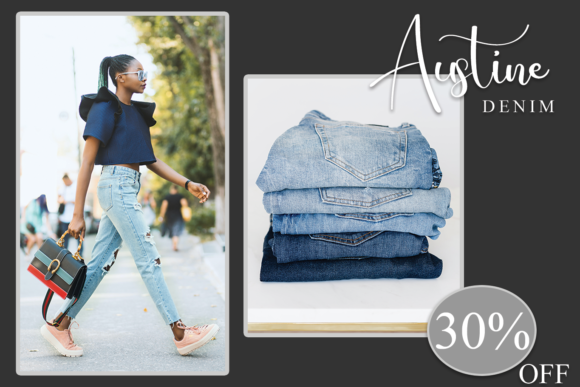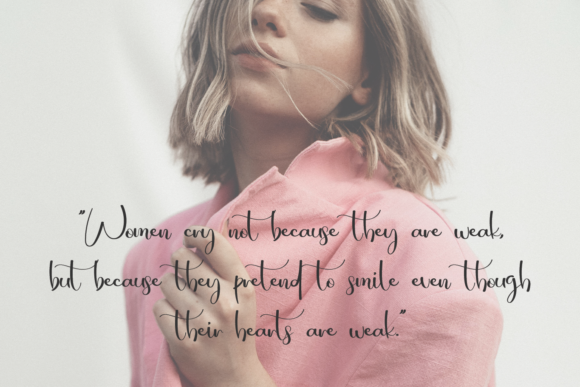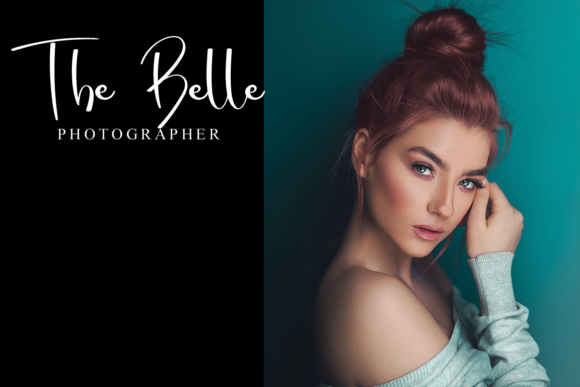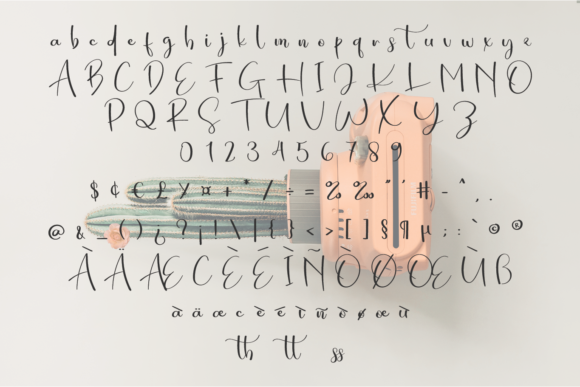
The Sparkle You Need: A Deep Dive into Glitter Font
I’ll never forget the time I was working on a party invitation design for a client’s daughter’s birthday. The theme was a princess-themed fairy tale, and I wanted to create something that would make the invitation feel like a magical experience. As I scrolled through my font library, searching for the perfect fit, I stumbled upon Glitter. Its charming, playful characters seemed to dance along the baseline, and I knew I had found the one. In this article, I’ll share my experience with Glitter, an honest review, a practical guide on how to use it, and some helpful tips and tricks.
An Honest Review of Glitter Font
Glitter is a stylish script font that adds a touch of whimsy to any design project. Here’s what I love about it:
- ✨ Charming, playful characters that add a touch of magic to any design
- 💫 Beautifully crafted to give a luxurious feel
- 🎉 Perfect for creative projects, such as party invitations, greeting cards, and social media graphics
While Glitter is an amazing font, it’s not perfect. Here are a few quirks to keep in mind:
- 🤔 Some characters may not work well in all contexts, such as body text or very small font sizes
- ⚠️ Limited availability of certain OpenType features in certain software
The Story Behind Glitter Font
Glitter was designed by a team of creatives who wanted to create a font that would add a touch of magic to any design project. Inspired by the sparkle of fairy dust, the team crafted Glitter to be a playful and luxurious font that’s perfect for creative projects.
| Font Name | Glitter Font |
| Author | erik studio |
| What is Glitter font best used for? | Glitter is perfect for creative projects, such as party invitations, greeting cards, and social media graphics. |
| Does Glitter font support OpenType features? | Yes, Glitter supports OpenType features, such as glyphs and stylistic alternates, to add more flair to your design. |